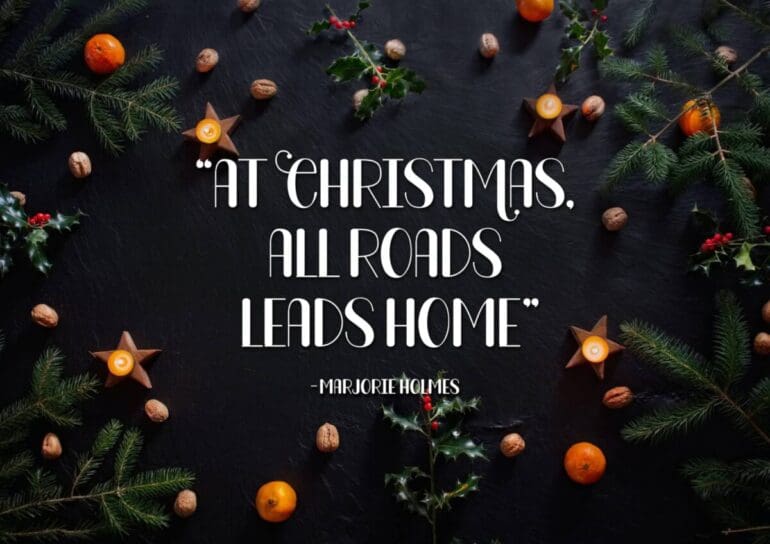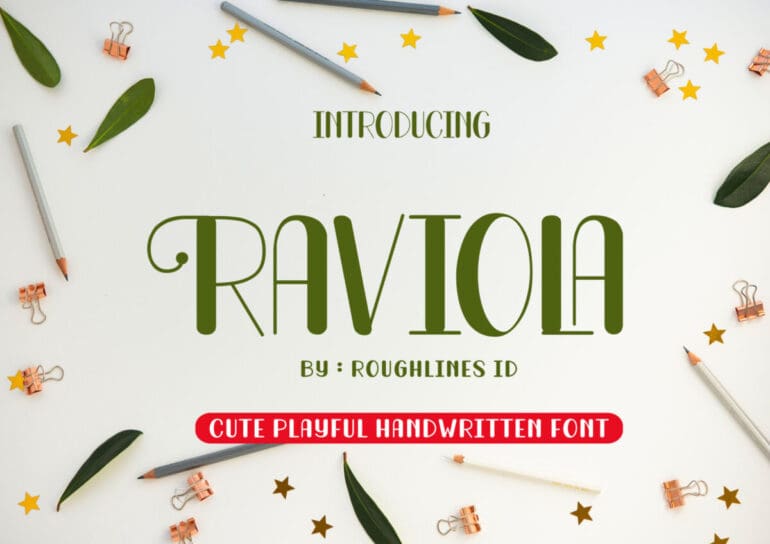
Raviola Font
Raviola Font. Raviola is a cute and playful Handwritten Font. this font has a really had cute look and fits your creative idea, poster, gift cards, Branding, and DIY Crafty project that will make your idea into a true piece of art!